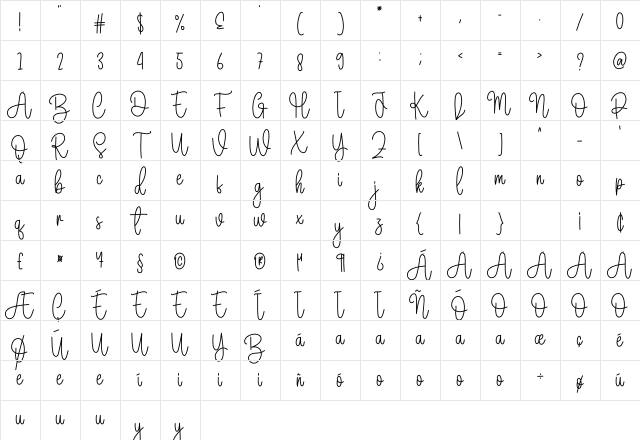
Winter Christmas Regular Free Font
Winter Christmas Regular
Design Context for Winter Christmas
Winter Christmas is a composed and adaptable typeface that performs quietly and consistently across a wide range of design contexts.